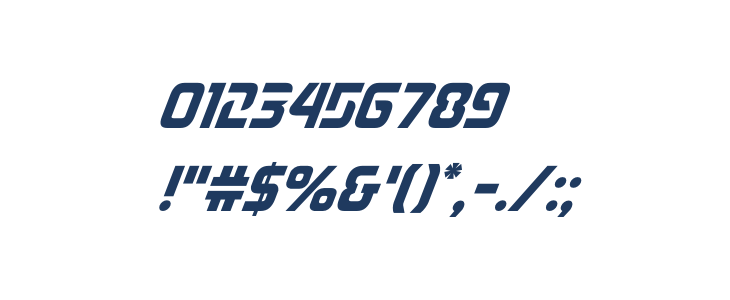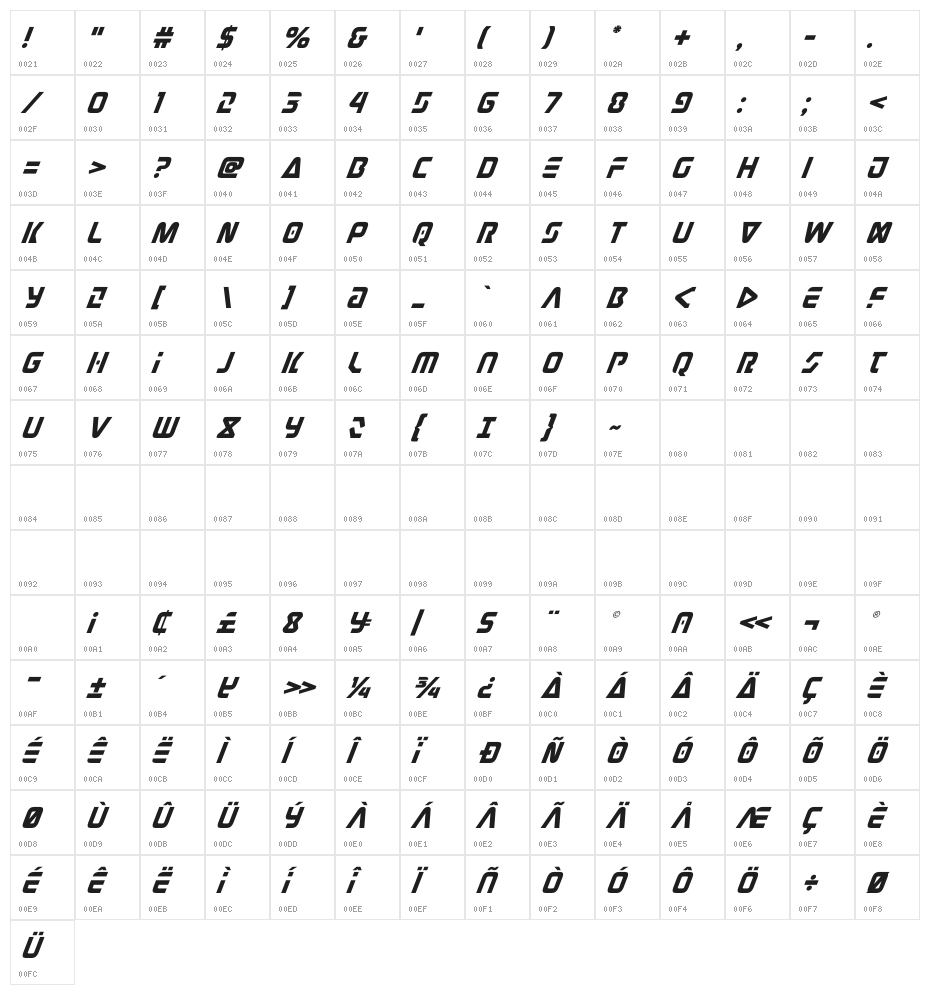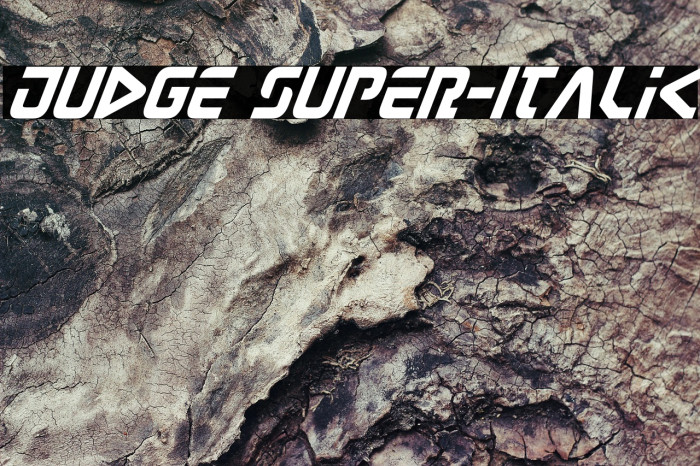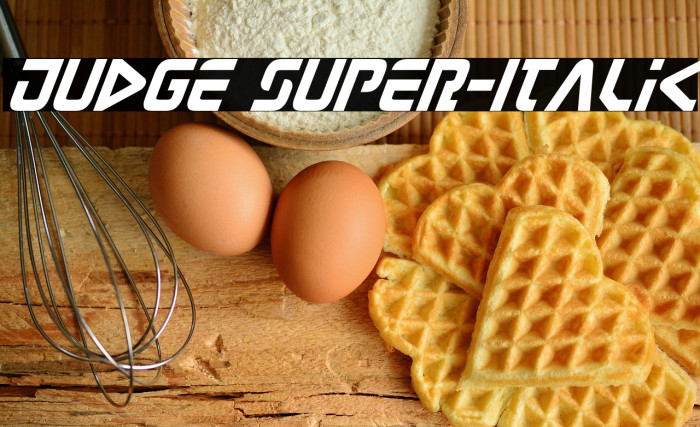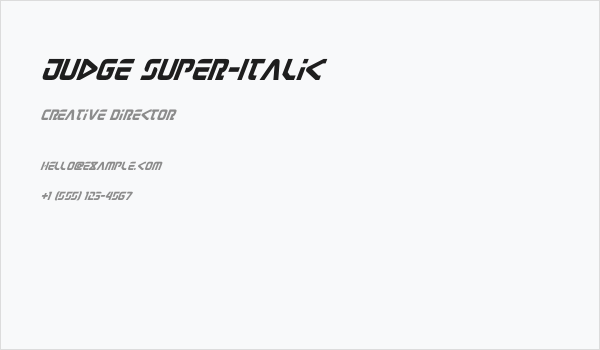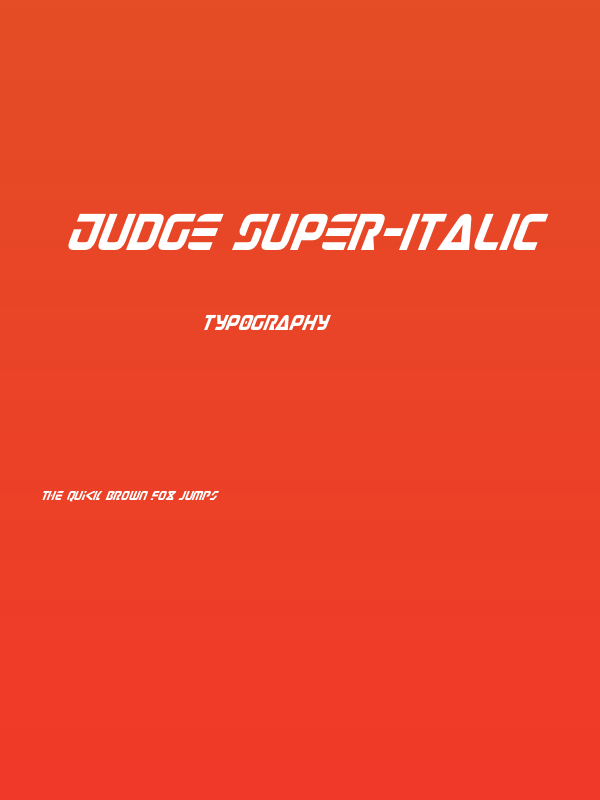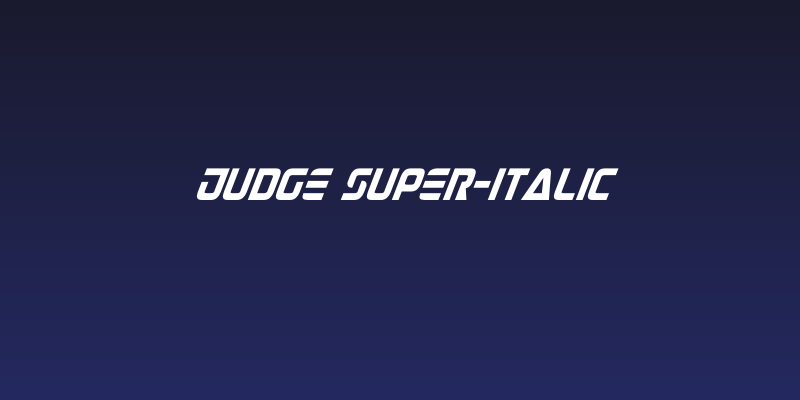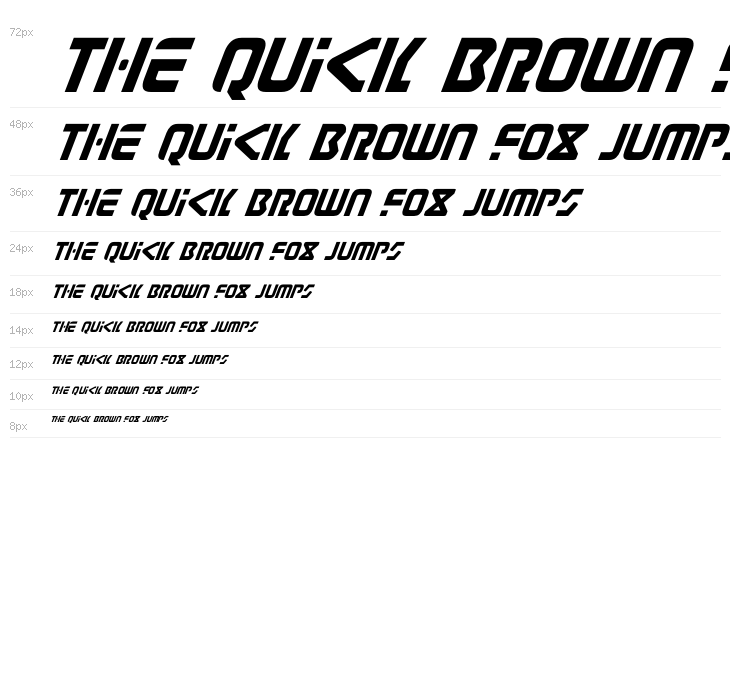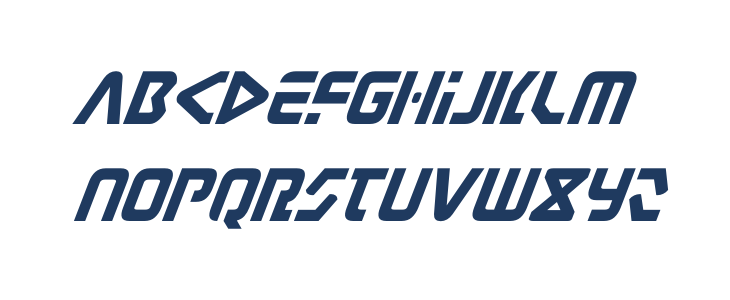
Judge Super-Italic Font
Judge Super-Italic Description
This font features a bold, dynamic style with a strong italic slant, giving it a sense of motion and energy. The characters are wide and have a futuristic, geometric design, with sharp angles and clean lines. The uppercase letters are particularly striking, with unique shapes that make them stand out. The lowercase letters maintain the same boldness and angularity, ensuring consistency across the typeface. Numbers and special characters are equally bold and stylized, making them suitable for attention-grabbing designs. The overall appearance is modern and assertive, ideal for projects that require a strong visual impact.
| Proposed Projects | Ideal for sports branding, technology logos, and dynamic poster designs. |